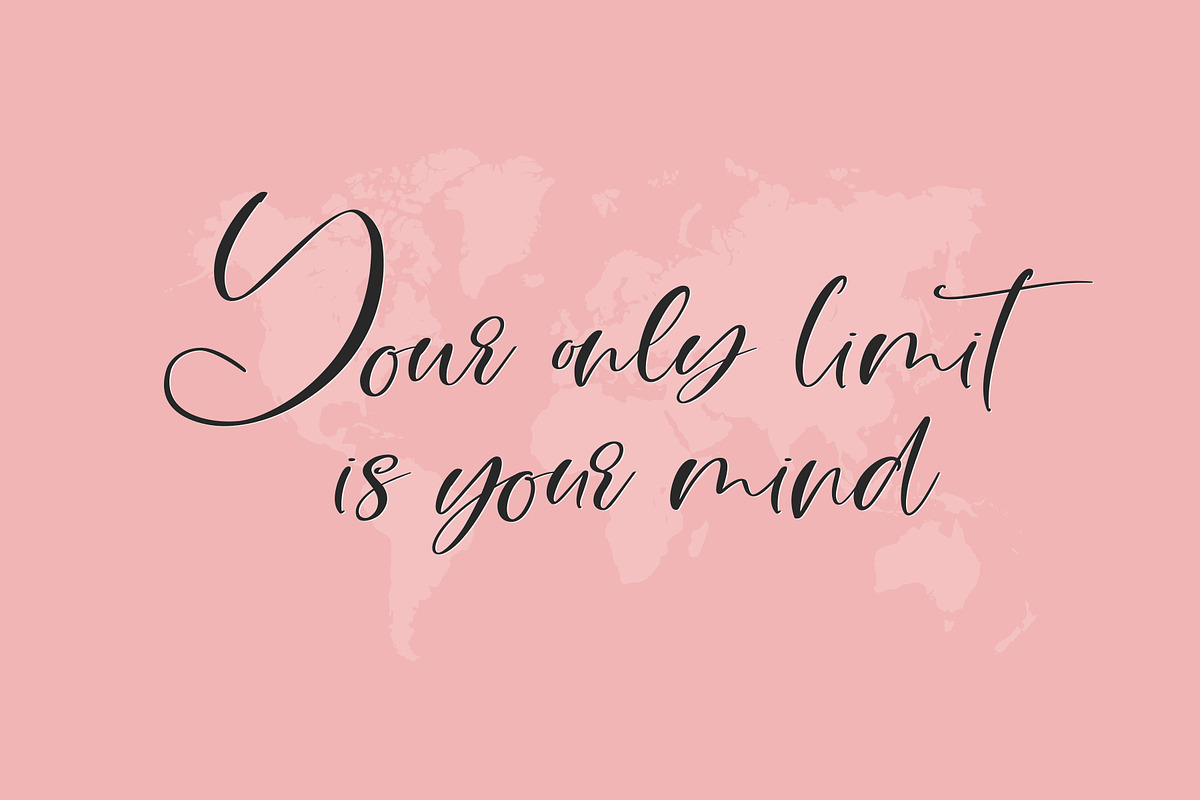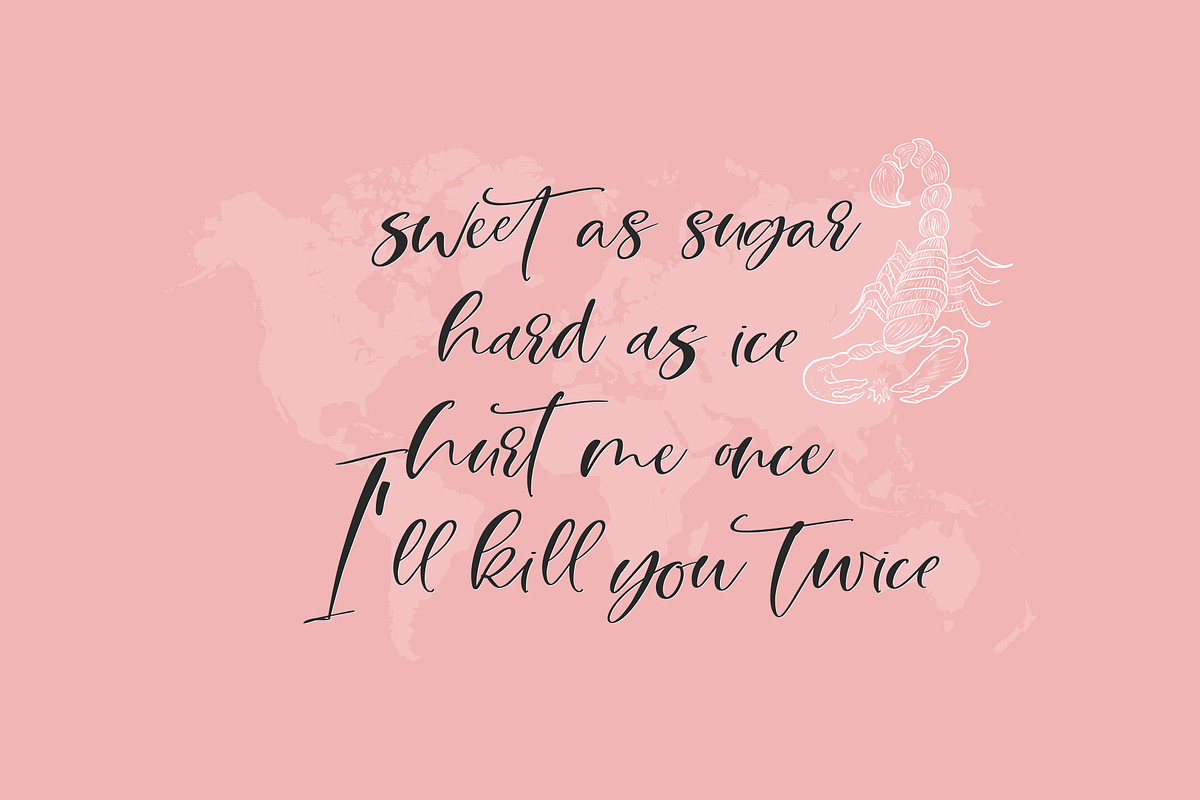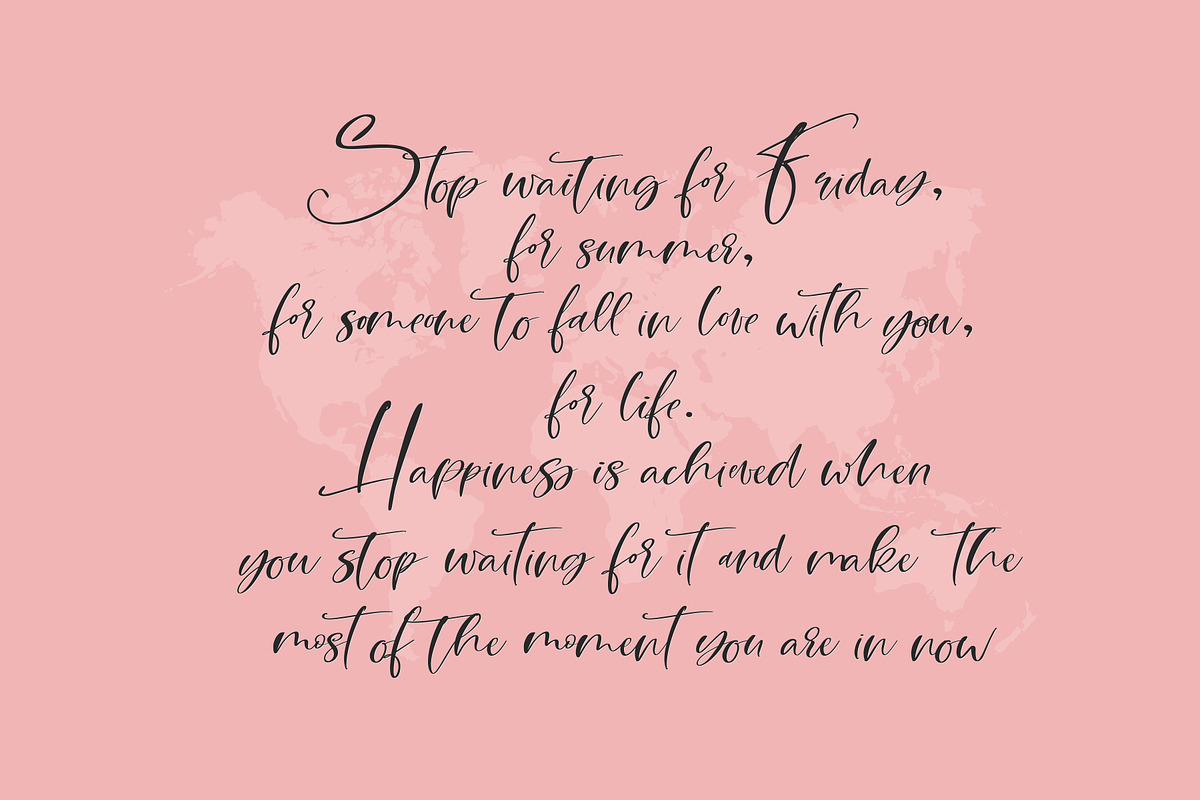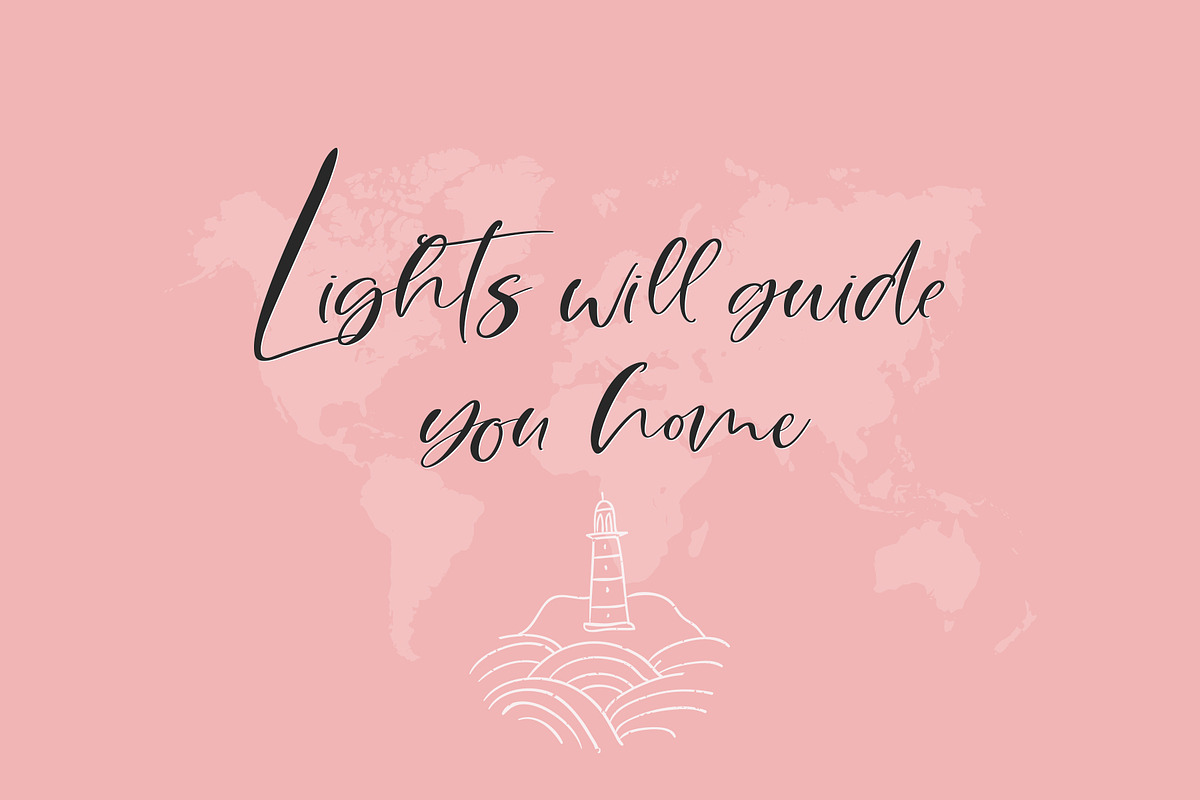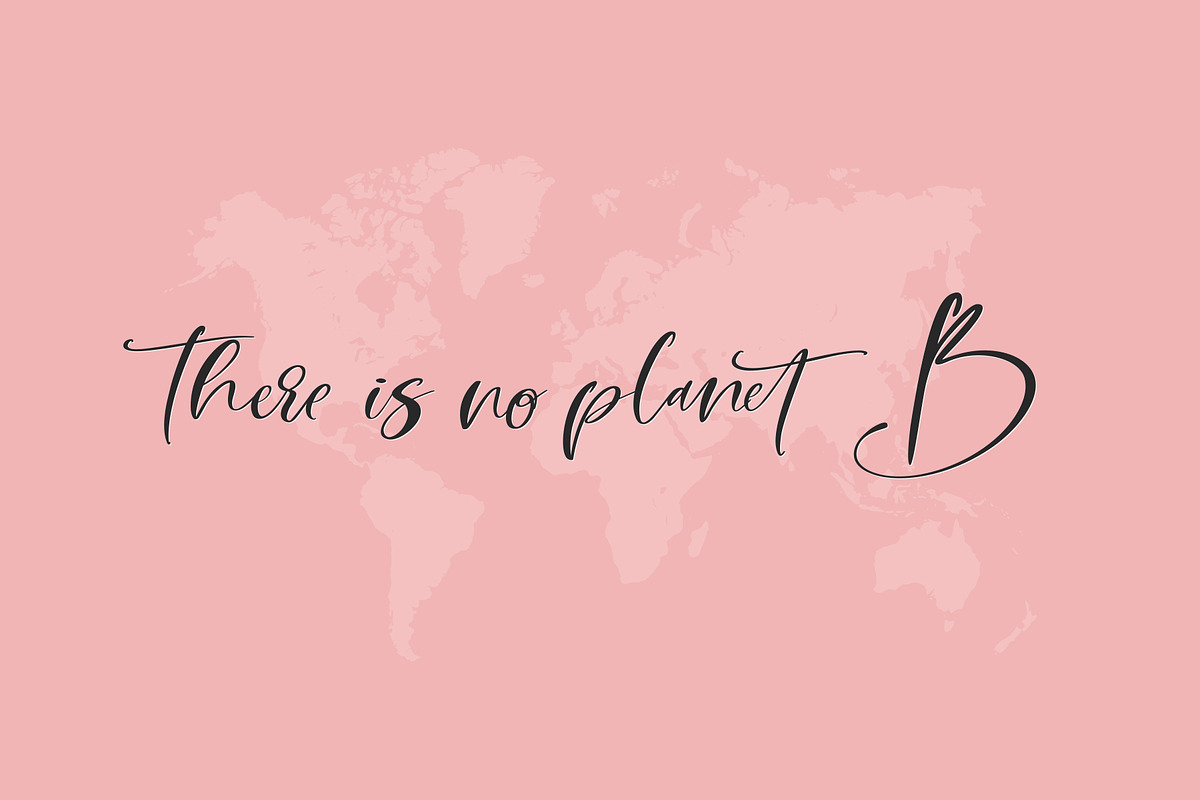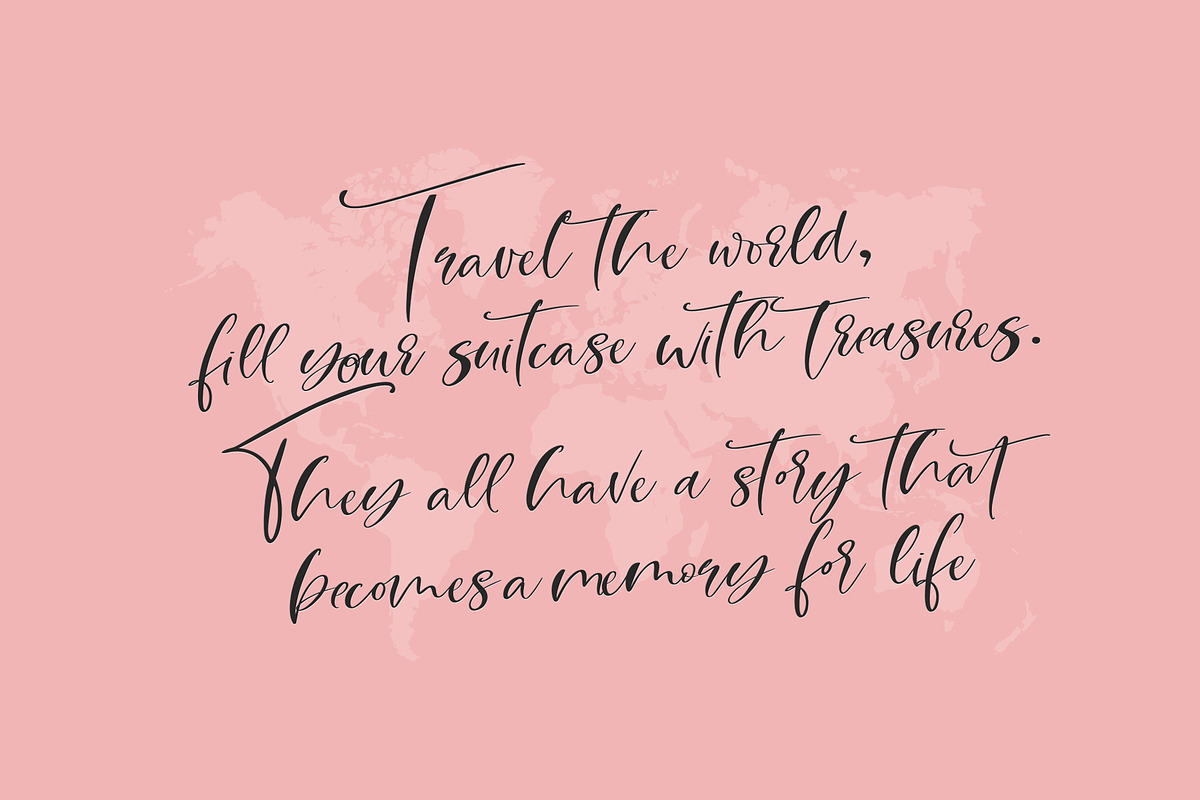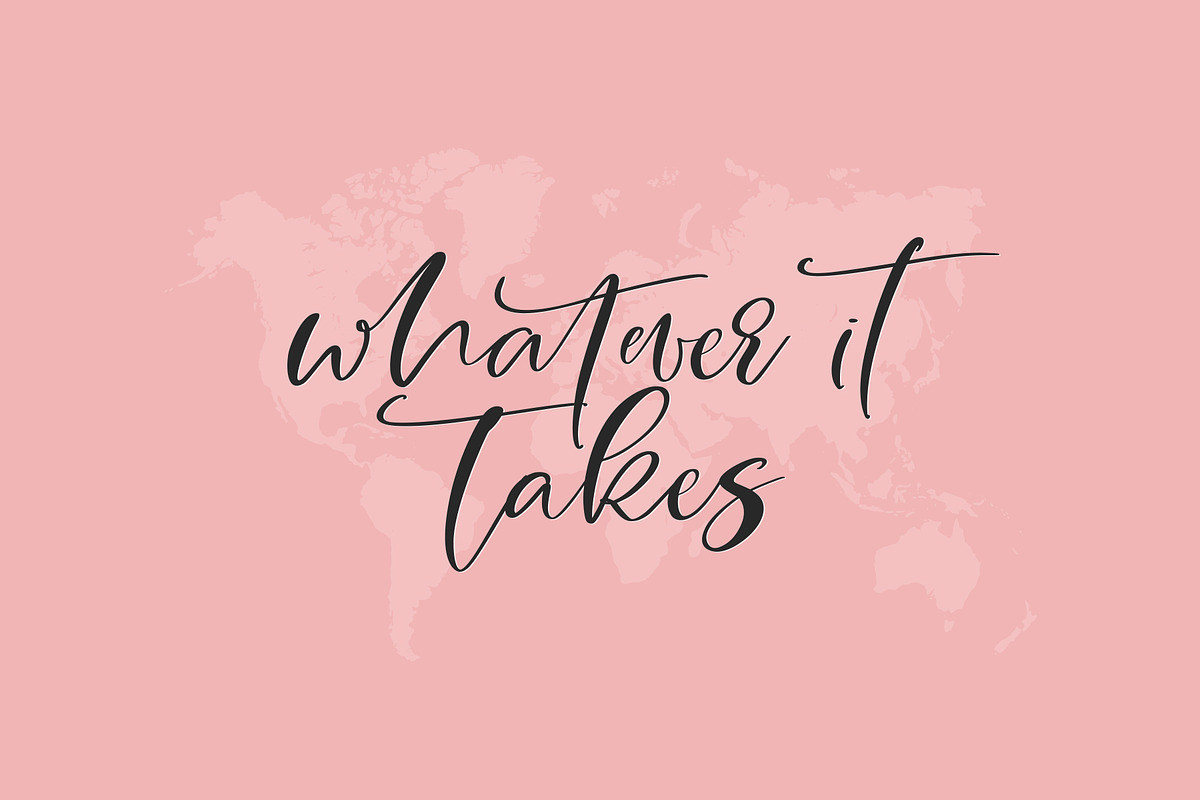
Breathe Me Script font
Breath Me Script font - it's a modern script font
Why Breathe Me Script font is worth a look
Breathe Me Script font by CallMeStasia fits naturally into Branding, posters, packaging, typography.